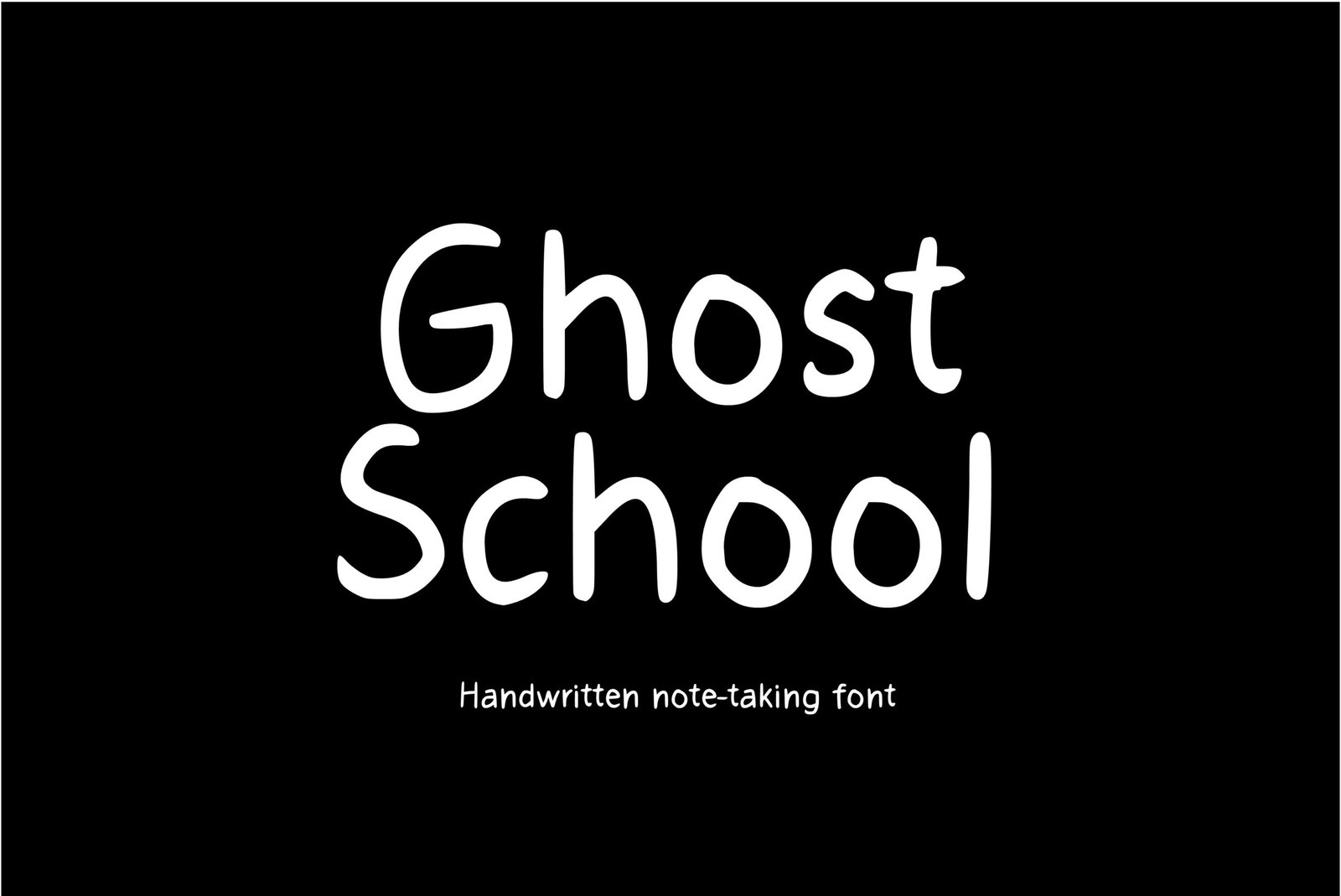
Ghost School Font
Handwritten note taking font. “Ghost School”. Perfect for goodnotes, student projects, classroom, school teachers, advertising and display purposes, including banners, book covers, shirts, posters, logos and much more!
Font includes all upper and lowercase letters, numbers, characters, and punctuation.